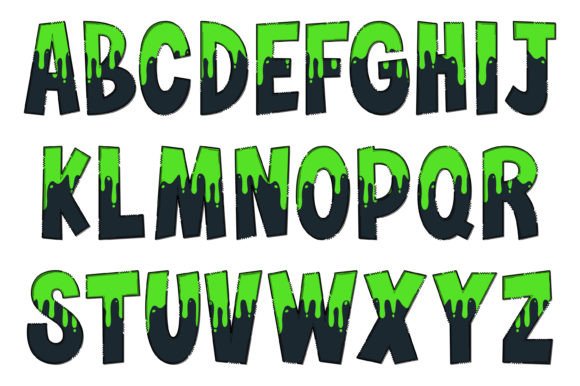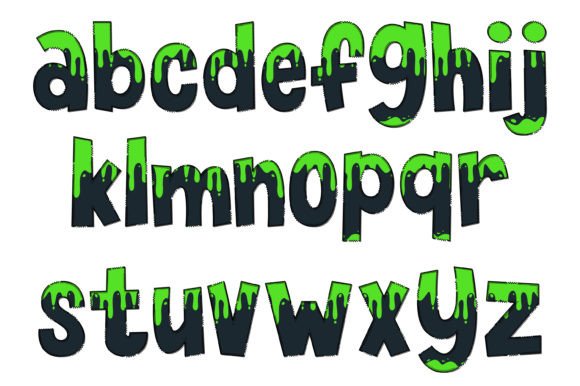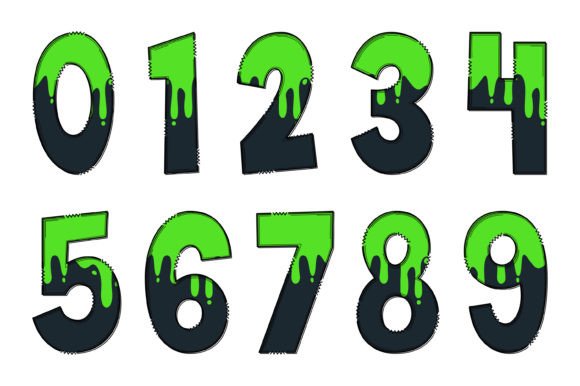
Introduction to Green Slime Font
Green Slime is a playful color font that brings the gooey fun of slime to your designs.
Each letter is dripping with vibrant green slime, creating a playful and energetic look Perfect for adding a touch of whimsy and excitement to children’s projects, party invitations, or playful designs.